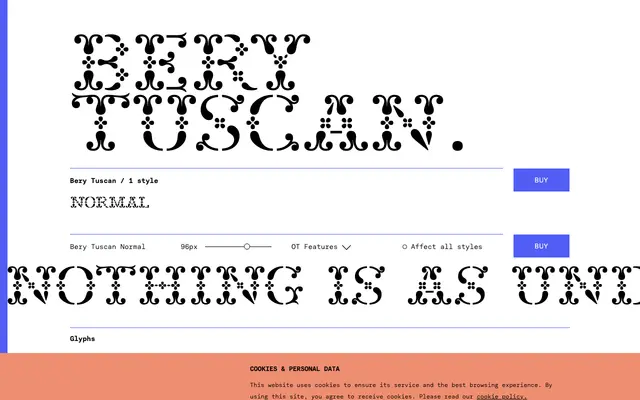
Bery Tuscan
TYPE BY · Fred Smeijers, Pierre Pané-Farré · 2012
A digital revival of Jean Gabriel Bery's 18th-century Parisian tuscan stencil letters, drawn by Fred Smeijers and Pierre Pané-Farré from just sixteen surviving stencils.
Based on the capital stencil set Bery supplied to Benjamin Franklin in 1781, the design features acanthus-leaf strokes ending in rounded, bifurcated serif-tendrils. Smeijers and Pané-Farré extrapolated a complete uppercase alphabet from only sixteen original stencils, translating the slanted originals into an upright configuration and producing what is claimed to be the largest glyph set ever assembled for a tuscan typeface. Released in 2012 as part of the Stencil Fonts Series, it sits alongside Bery Roman and Bery Script as historical revivals rooted in a long French stencil tradition.
A historical revival of Jean Gabriel Bery's 18th-century tuscan stencil letters, characterised by bifurcated serif-tendrils and acanthus-leaf motifs; firmly display in category due to its ornamental, decorative letterforms unsuited to continuous text.